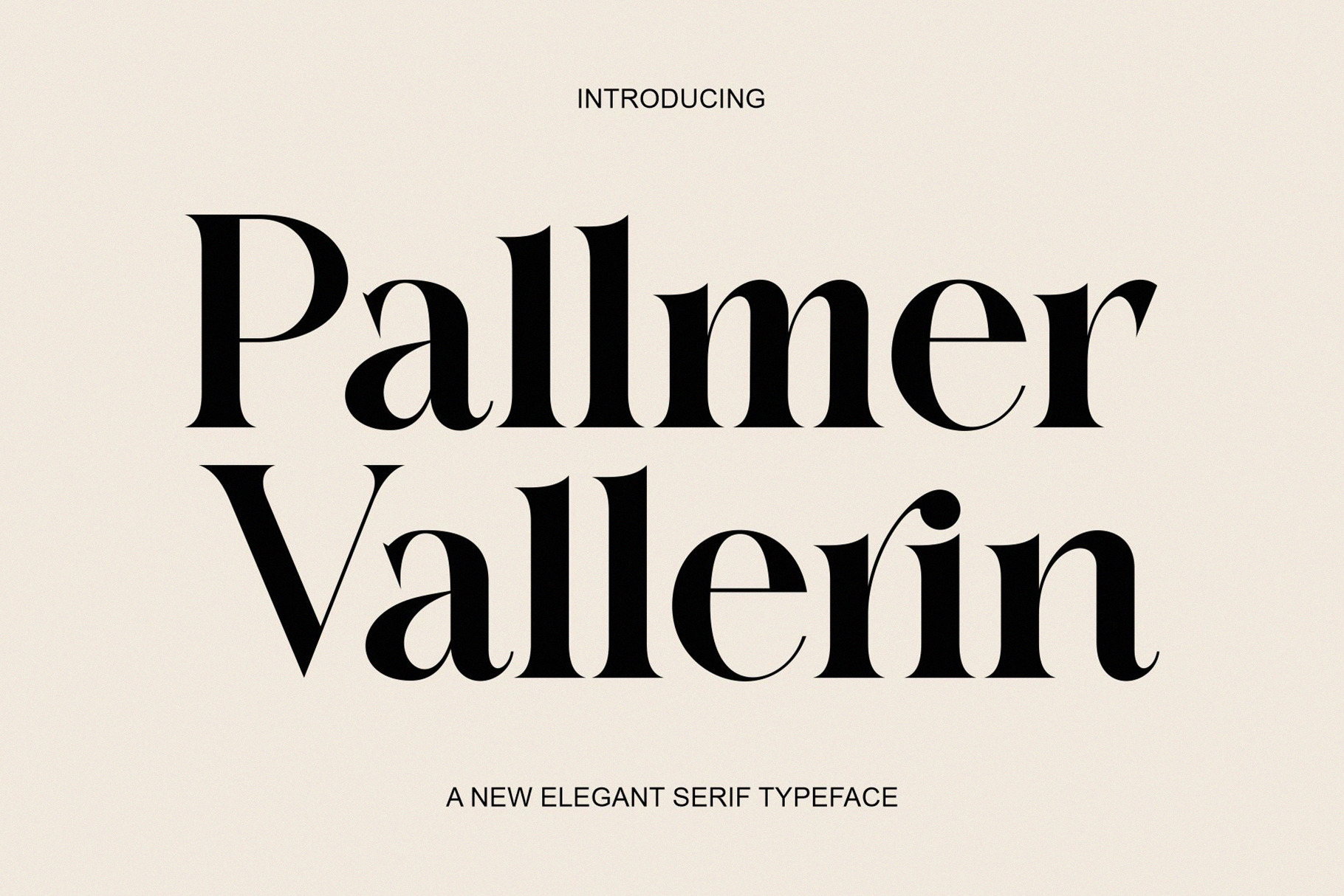
Pallmer Vallerin Elegant Serif Font
Pallmer Vallerin Modern and beautiful Serif Typeface inspired by the famous minimalist logo perfect for the purposes of designing templates, brochures, videos, advertising branding, logos, invitation, layout design, elegant crafting, beauty design and other